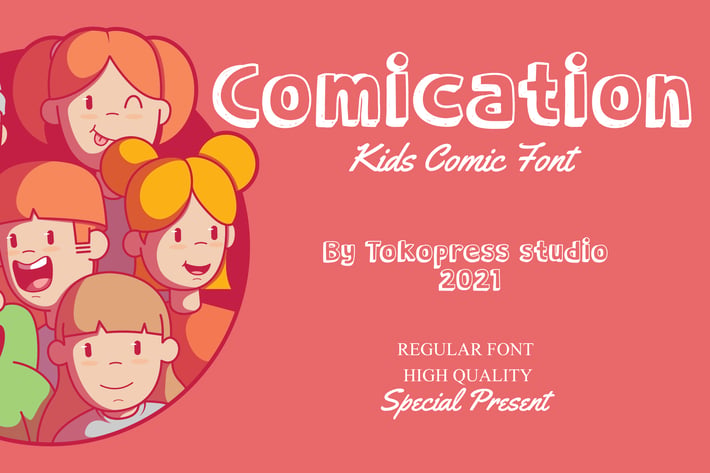
Comication - Cute kids font
Comication - Cute Kids Font
Comication is a cute kids comic font with a bouncy baseline and hand-drawn curves, tailored to delight young eyes and engage playful imaginations. Its rounded letterforms, medium weight, and whimsical rhythm offer an inviting tone that balances approachability and legibility—perfect for kid-focused storytelling, children’s merchandise, or playful educational material.
The font’s vibe is cheerful and expressive, giving designers a warm, comic-inspired style with just enough character to stand out in branding or editorial layouts. It feels right at home in child-centric environments like games, daycare promotions, and seasonal party invites.
From playful event flyers and party kits to T-shirts, mobile apps, and school program branding, Comication brings consistent charm and visual joy to the page or screen. Whether you're designing for birthday events, creating fun product packaging, or publishing educational materials, this font adds a fresh, friendly voice that kids and parents love.
Why You’ll Love Comication:
- Rounded cartoon shapes for a soft, kid-friendly aesthetic
- Bouncy letter rhythm ideal for storytelling and fun branding
- Clear readability even at smaller sizes
- Versatile across physical and digital projects: packaging, posters, social media, signage
- Suitable for everything from preschool programs to creative online shops